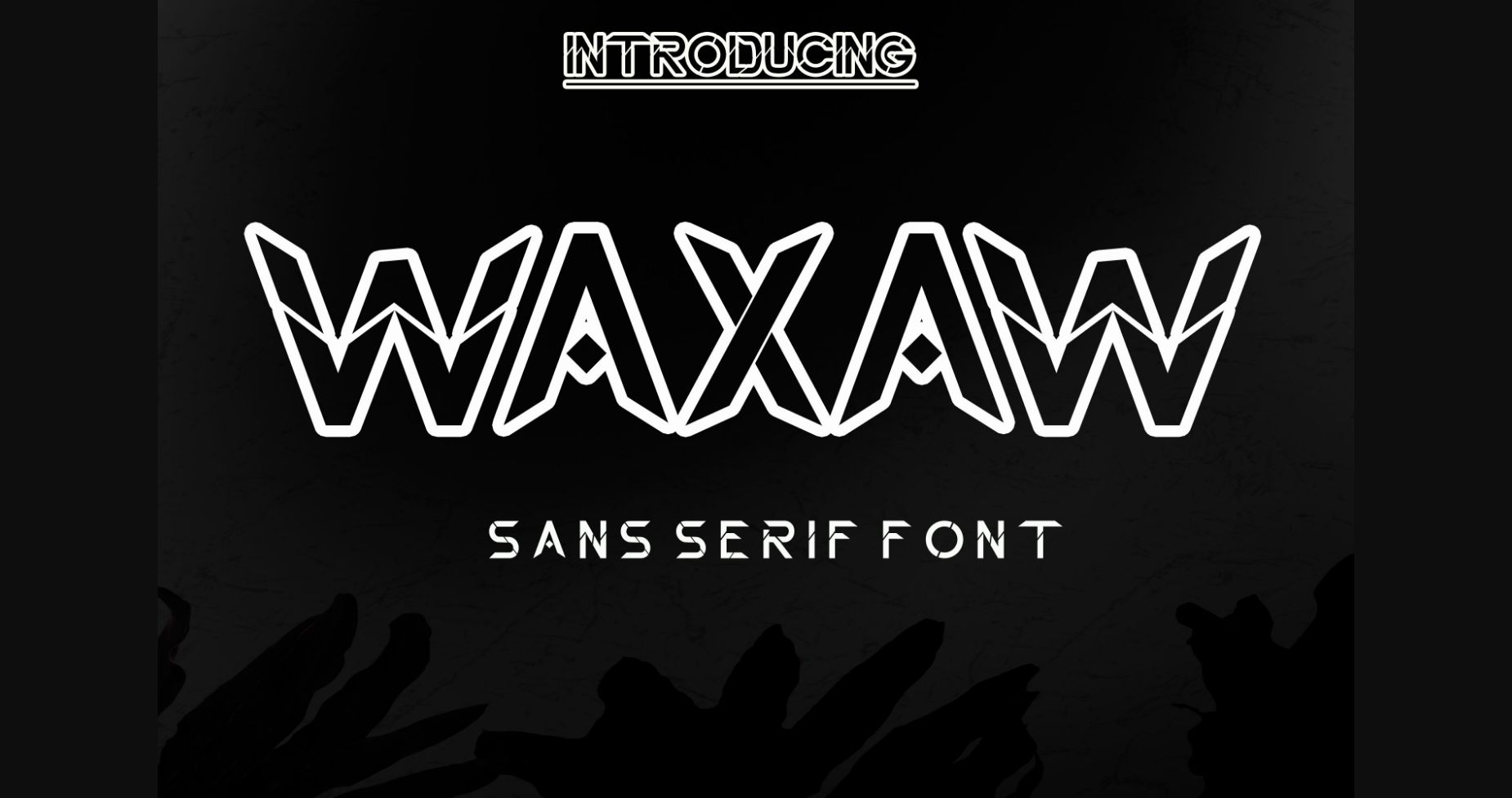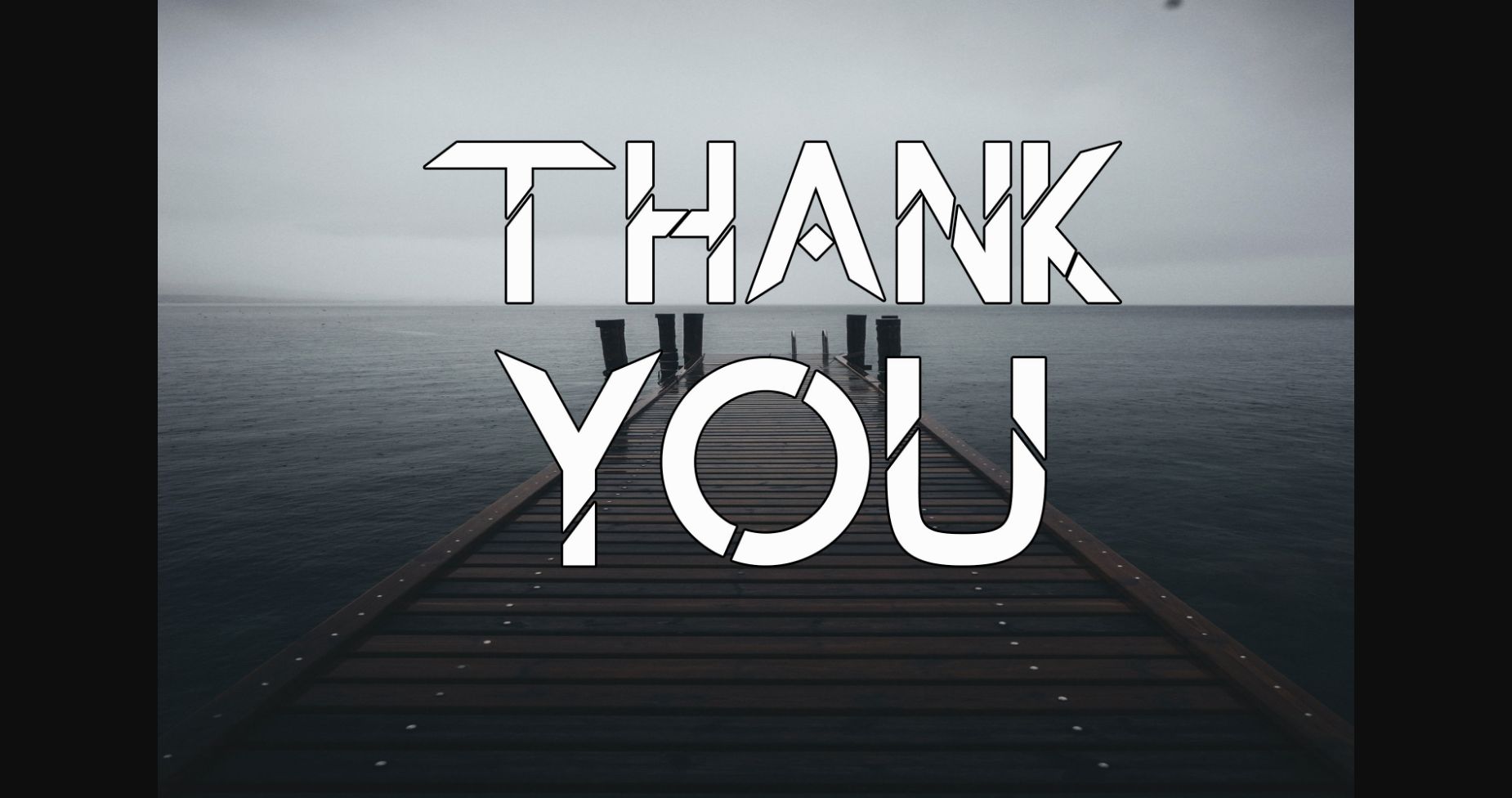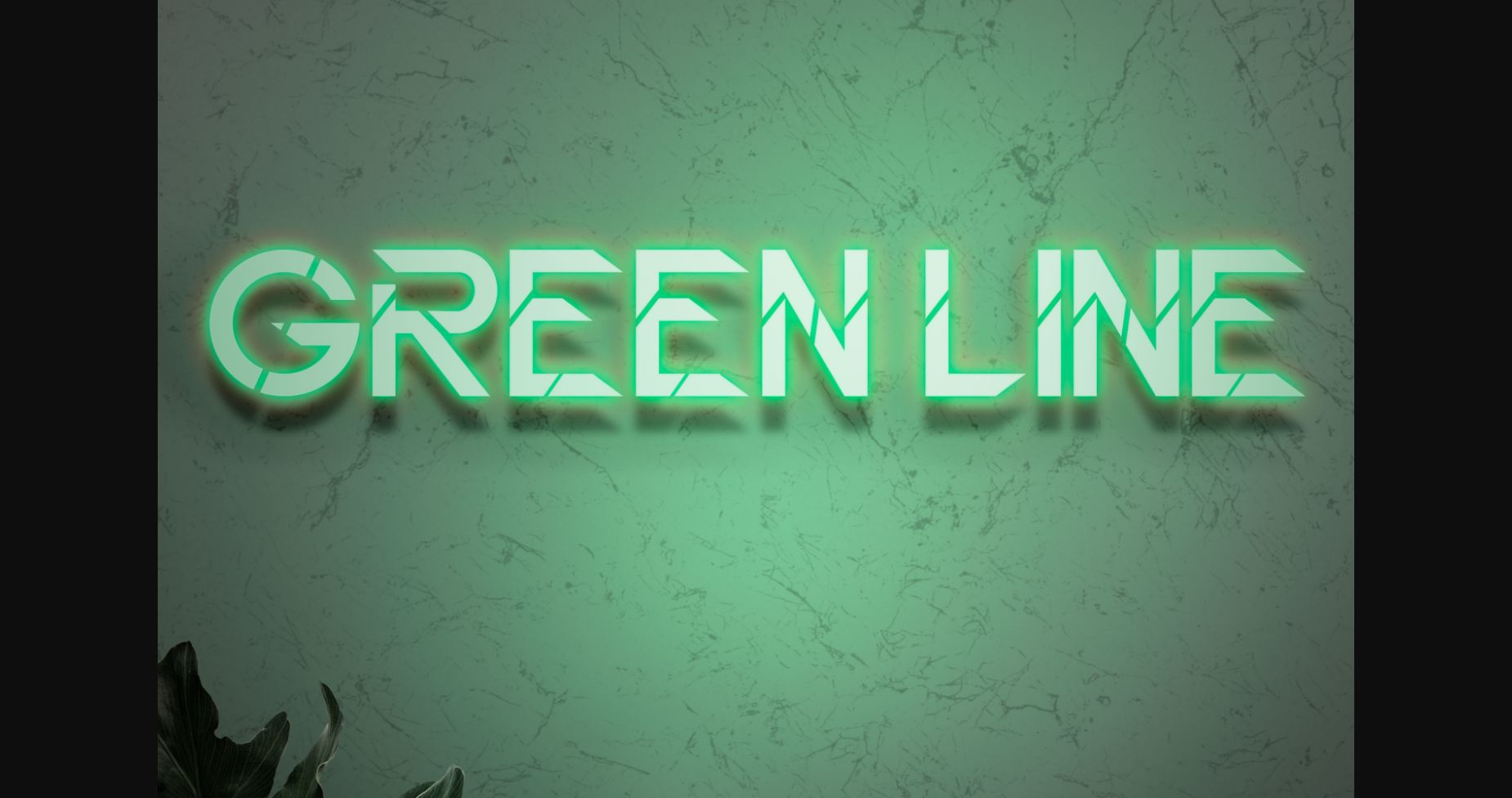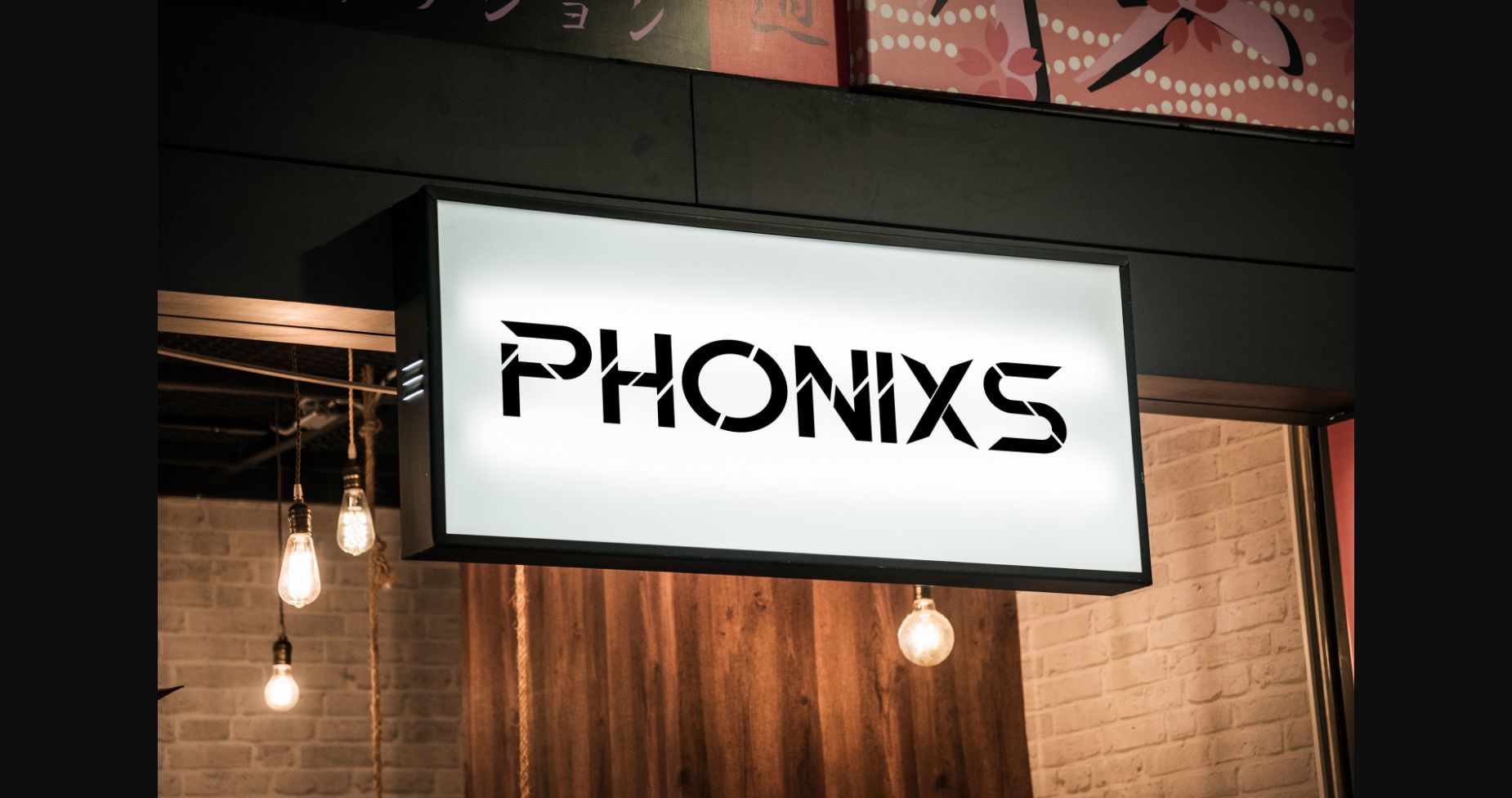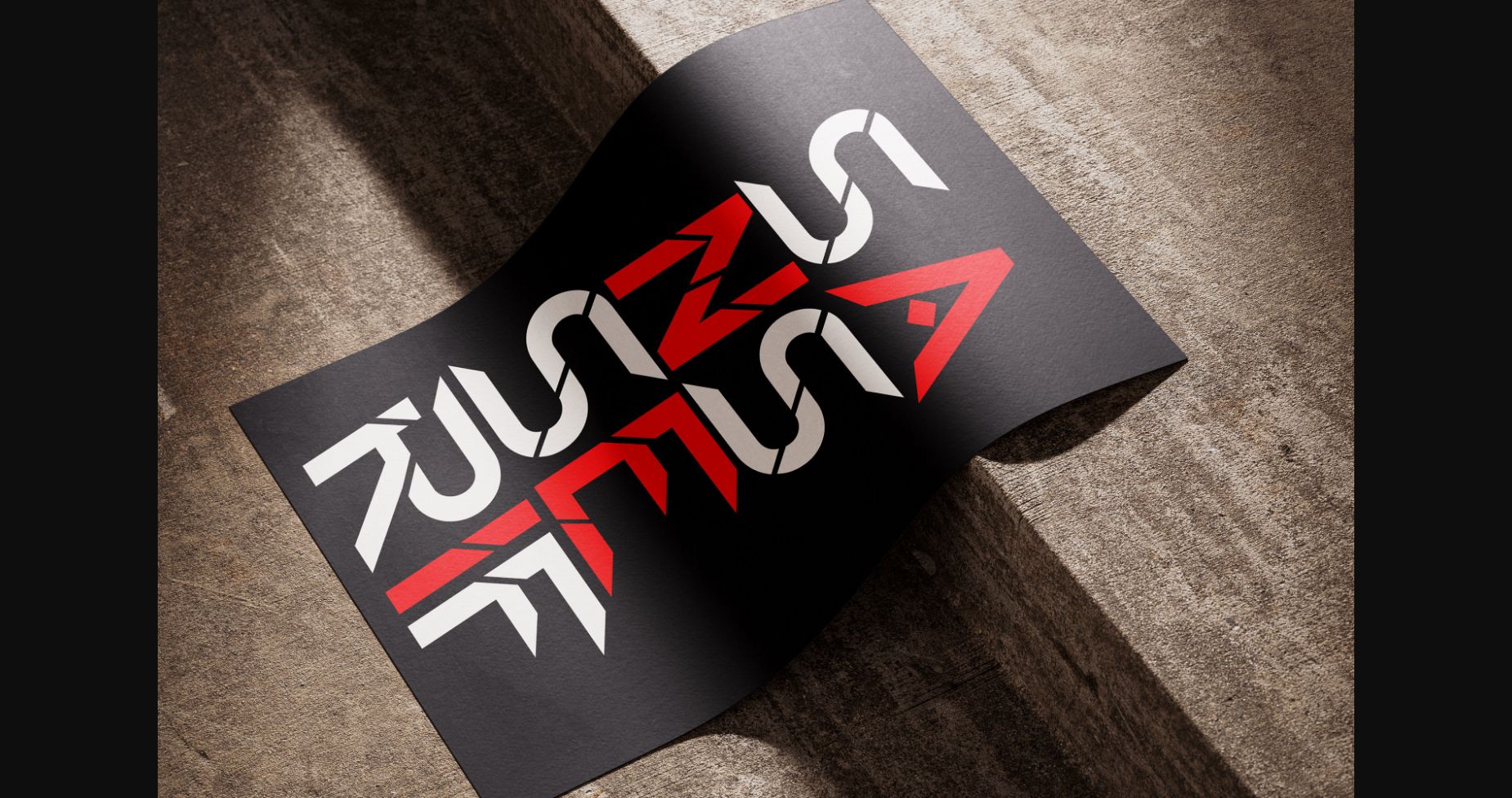
Waxaw Font
About Waxaw Font
Waxaw is a bold and assertive serif font. No matter the topic, this font will be an incredible asset to your fonts’ library, as it has the potential to elevate any creation.